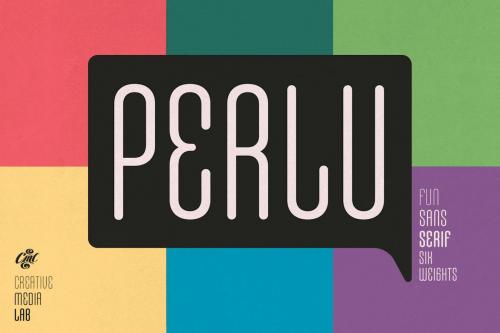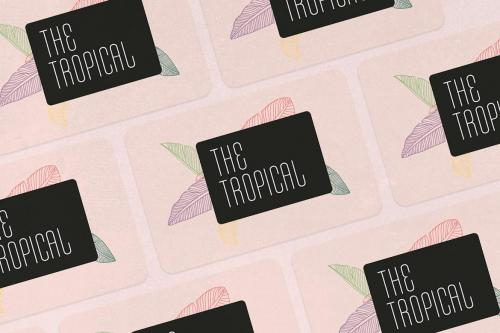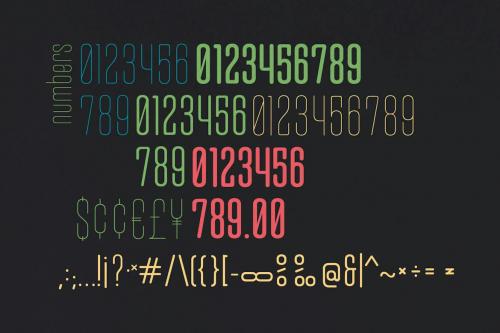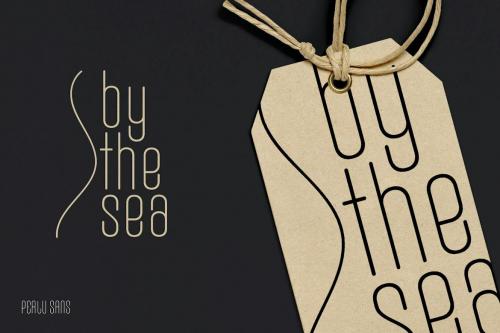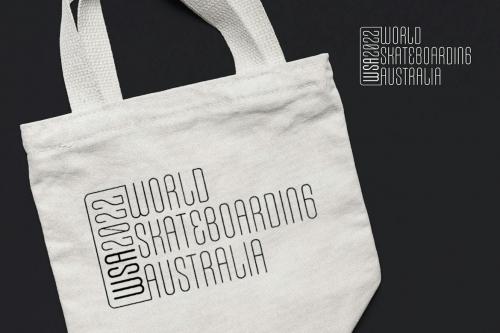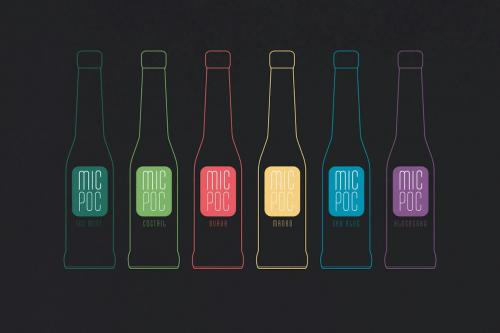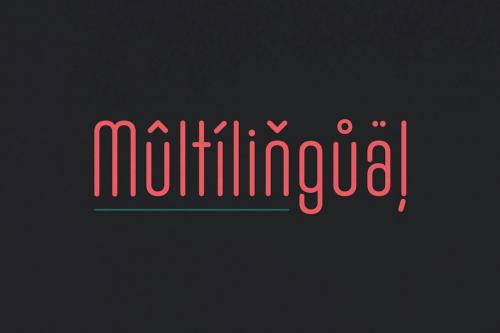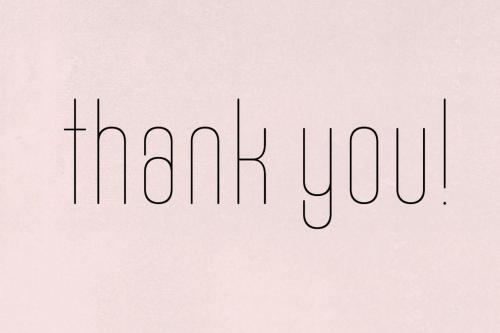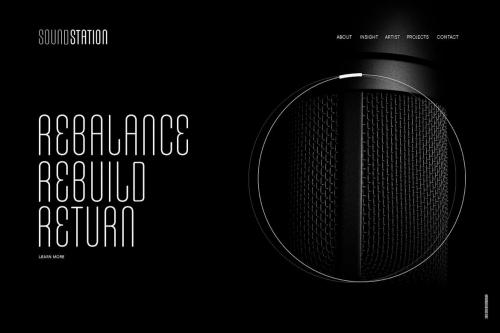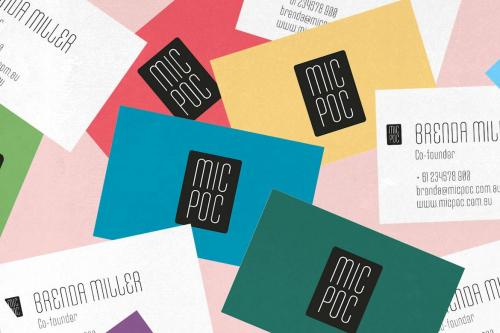
普鲁斯Sans - 现代且有趣的无衬线字体
Perlu Sans - modern & fun san serif font
Perlu is simple and minimalist sans serif font. Monoline with round edges give a casual and modern impressions, Consists of 6 weights from thin to black, variable styles as well as multilingual support, numbers, and currency symbols.